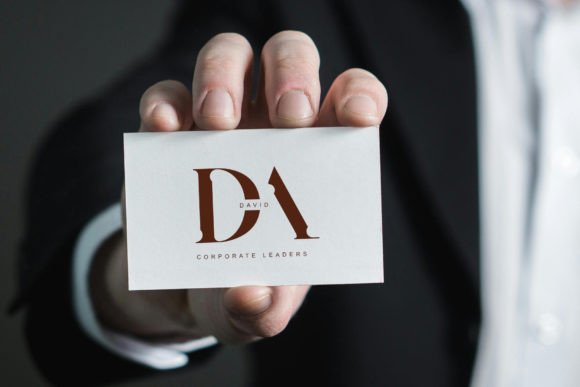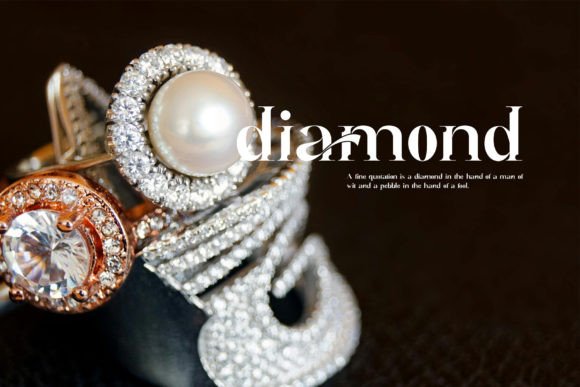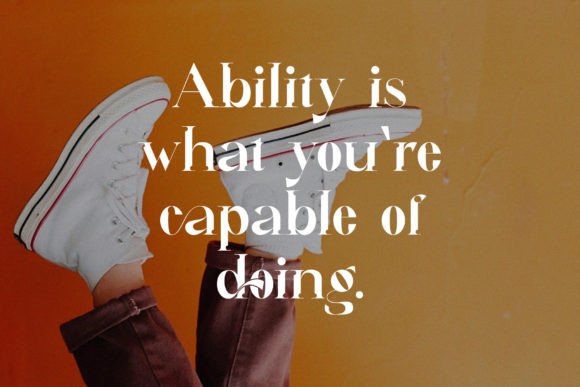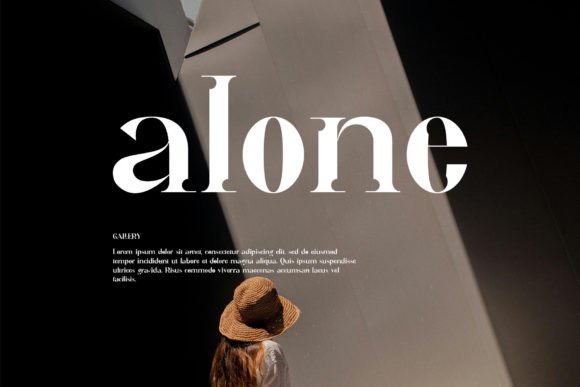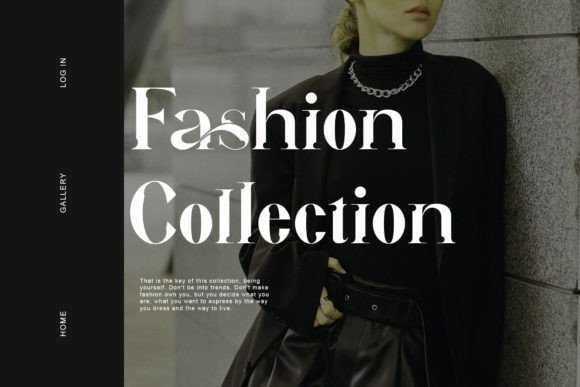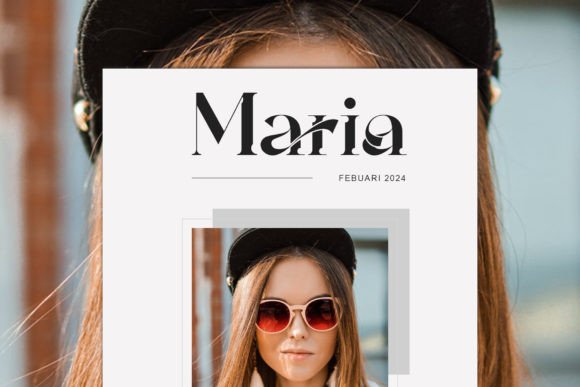
Dottkar Font: Elevate Your Designs with Modern Serif Elegance
In the realm of design, typography plays a pivotal role in conveying messages, evoking emotions, and creating lasting impressions. Among the myriad of fonts available, the Dottkar Modern Serif Typeface stands out for its unique blend of minimalism and sophistication. Inspired by the famous minimalist logo, Dottkar Font is a versatile and elegant typeface perfect for a wide range of design applications.
The Inspiration Behind Dottkar Font
Dottkar Font draws its inspiration from the simplicity and elegance of minimalist design. The creators aimed to capture the essence of modern serifs, resulting in a typeface that exudes professionalism and style. This font is not just a collection of letters; it’s a design statement that speaks of sophistication and refinement.
Key Features of Dottkar Font
- PUA Encoding: Dottkar Font is PUA (Private Use Area) encoded, which means it offers more than just your standard character set. With PUA encoding, designers can access a wide range of glyphs and ligatures, making it incredibly versatile for various design projects.
- Modern Serif Design: The font features modern serifs that add a touch of elegance to any design. Its clean lines and subtle curves make it perfect for projects that require a sophisticated look.
- Elegant Crafting: Dottkar Font is ideal for crafting elegant designs. Whether you’re working on beauty designs, fashion magazines, or high-end brand logos, this font adds a level of sophistication that’s hard to match.
- Multi-Purpose: From designing templates and brochures to creating videos and advertising branding, Dottkar Font is a multi-purpose typeface that can elevate any design project.
Applications of Dottkar Font
Dottkar Font’s versatility makes it suitable for a myriad of design applications. Here are some of the areas where this font truly shines:
- Templates and Brochures: Create stunning templates and brochures with a professional edge. Dottkar Font’s modern serif design ensures your content stands out.
- Videos and Advertising: For video content and advertising materials, Dottkar Font provides the perfect blend of readability and style, capturing your audience’s attention.
- Branding and Logos: Establish your brand’s identity with a logo that exudes elegance and sophistication. Dottkar Font is perfect for creating memorable brand logos.
- Invitations and Layout Designs: Whether it’s a wedding invitation or a corporate event, Dottkar Font can add a touch of class to your designs.
- Beauty and Craft Designs: For beauty brands, fashion designers, and crafters, Dottkar Font offers a stylish and modern aesthetic that aligns perfectly with current trends.
Why Choose Dottkar Font?
In a world where design trends are constantly evolving, having a font that can keep up is invaluable. Dottkar Font offers:
- Uniqueness: Stand out from the crowd with a font that’s both modern and distinctive.
- Versatility: Use Dottkar Font across various projects, from digital content to print materials.
- Ease of Use: Thanks to its PUA encoding, accessing glyphs and ligatures is straightforward, making the design process smoother.
Dottkar Modern Serif Typeface is more than just a font; it’s a design tool that can elevate your projects to new heights. Its elegant design, combined with its versatility and PUA encoding, makes it an excellent choice for designers and crafters looking to create stunning, professional-grade designs. Whether you’re working on branding, advertising, or crafting beautiful invitations, Dottkar Font is sure to become an indispensable part of your design toolkit.
Embrace the elegance of modern serifs and the practicality of PUA encoding. Choose Dottkar Font for your next design project and experience the difference it can make.